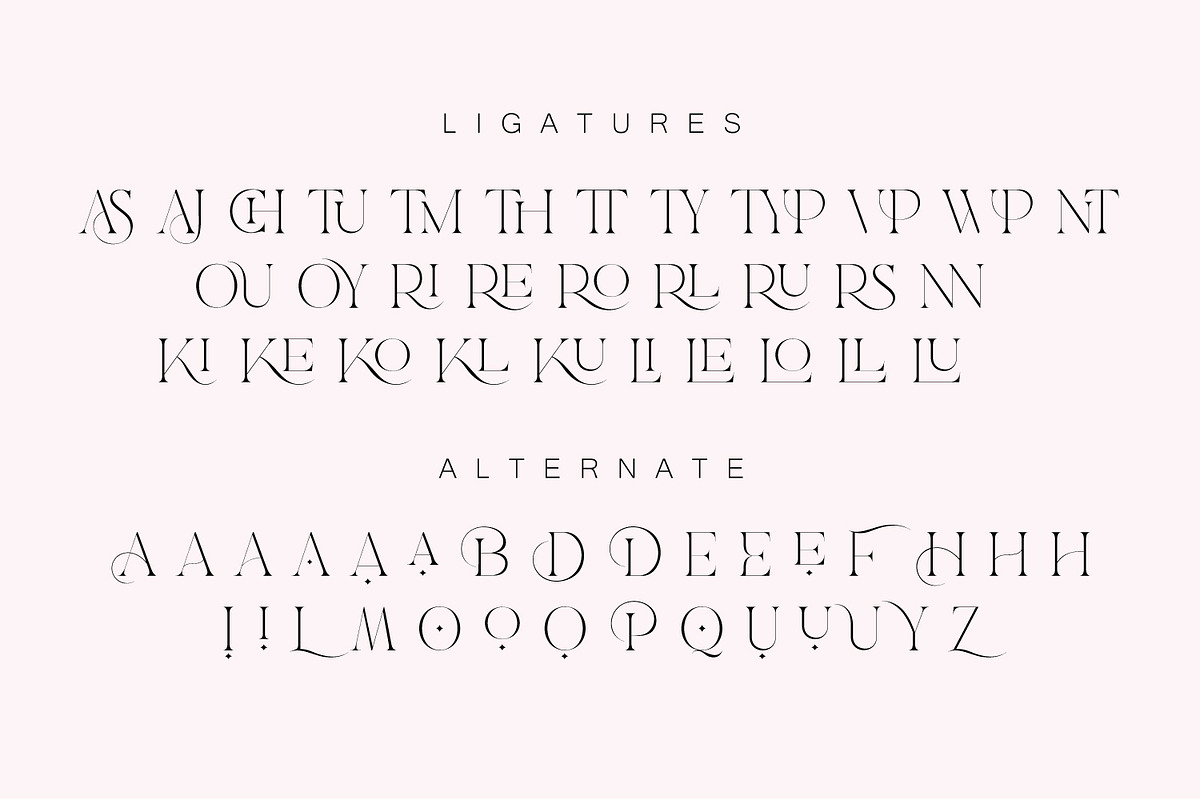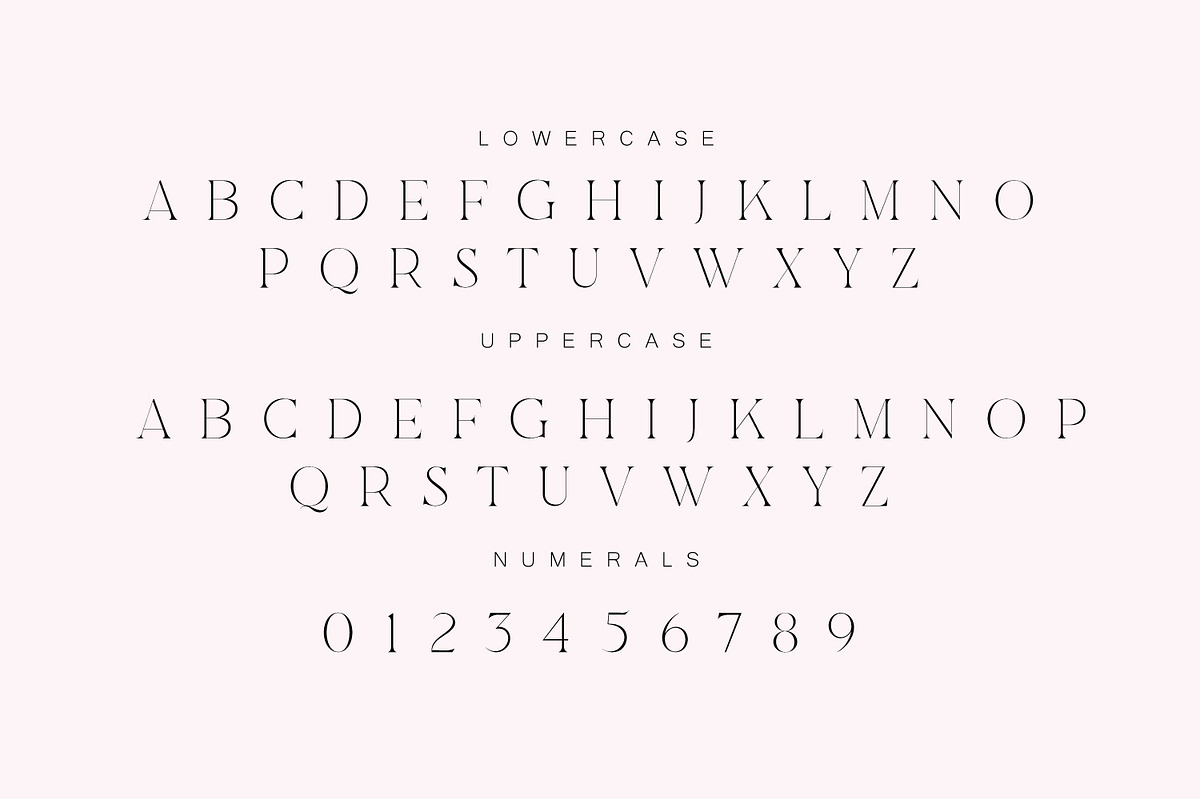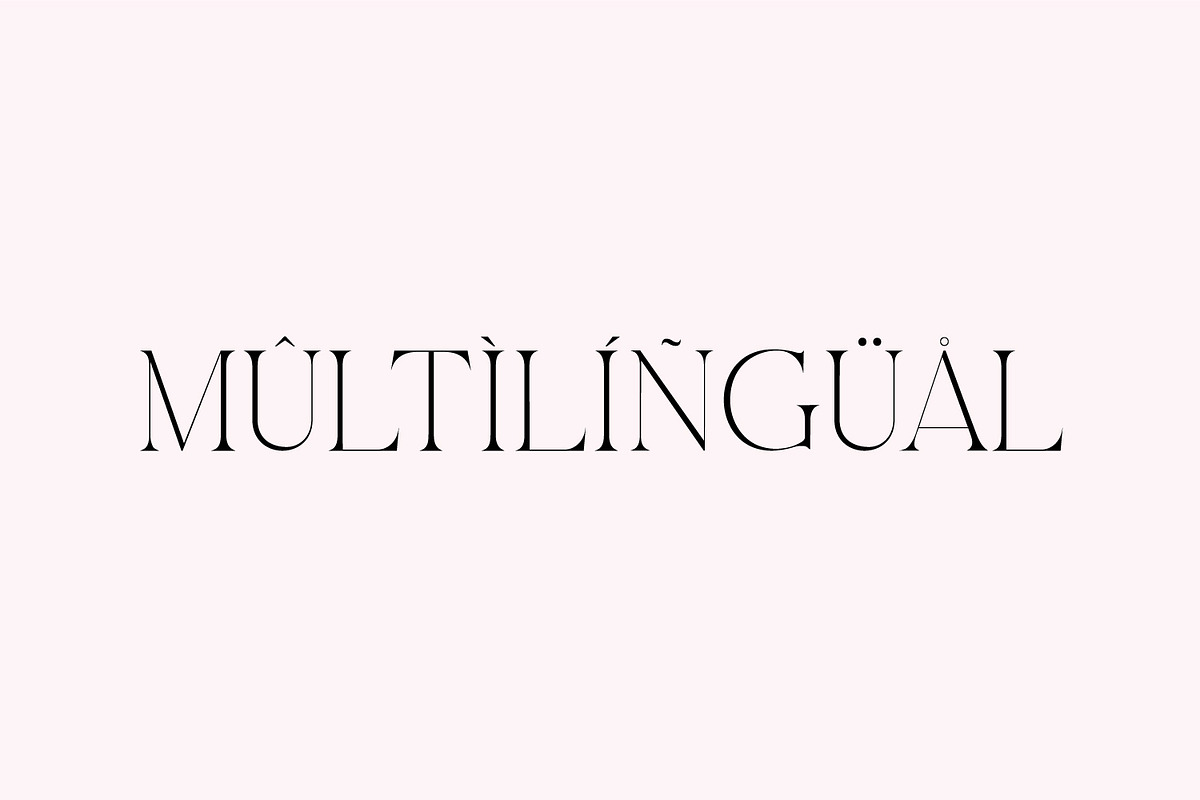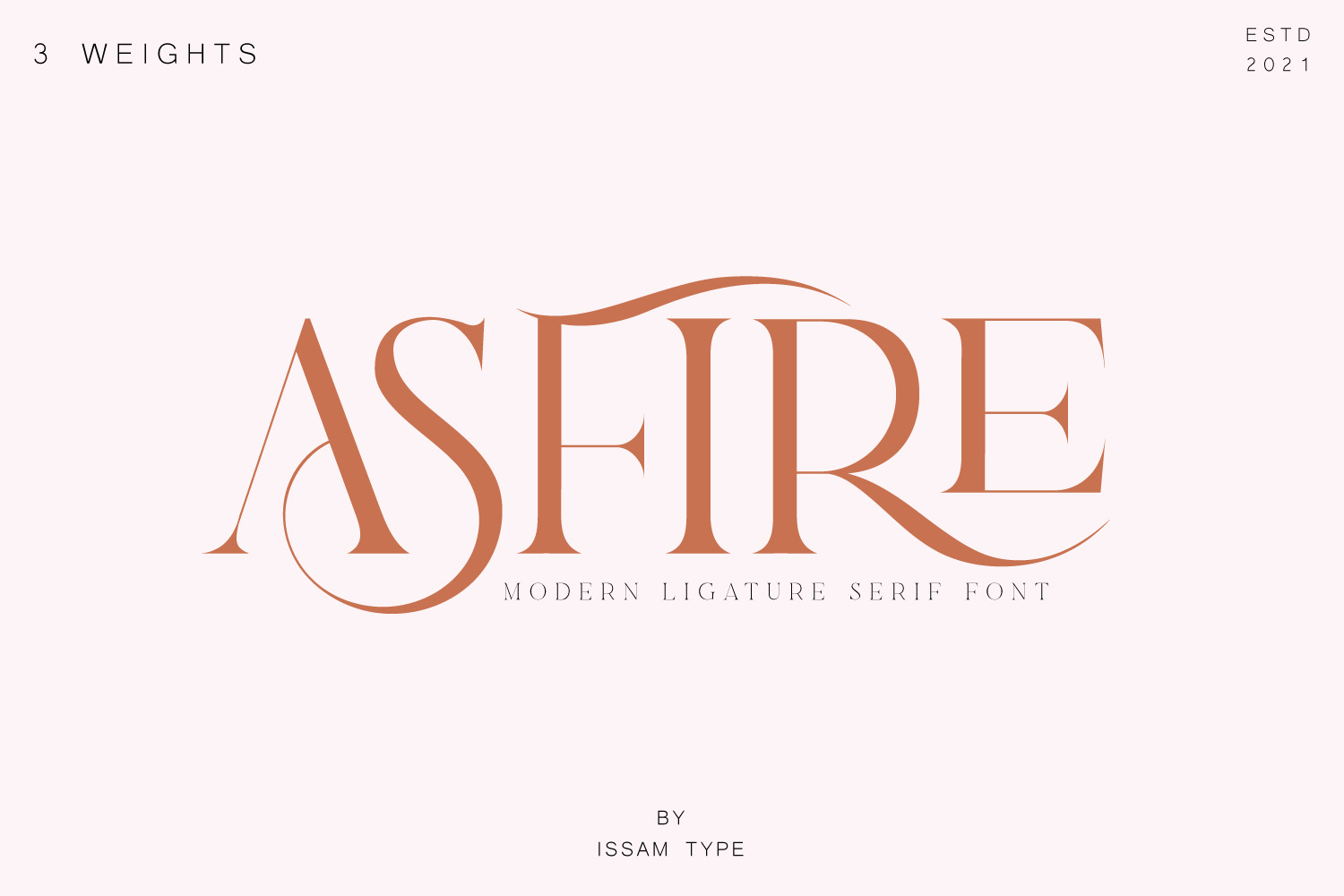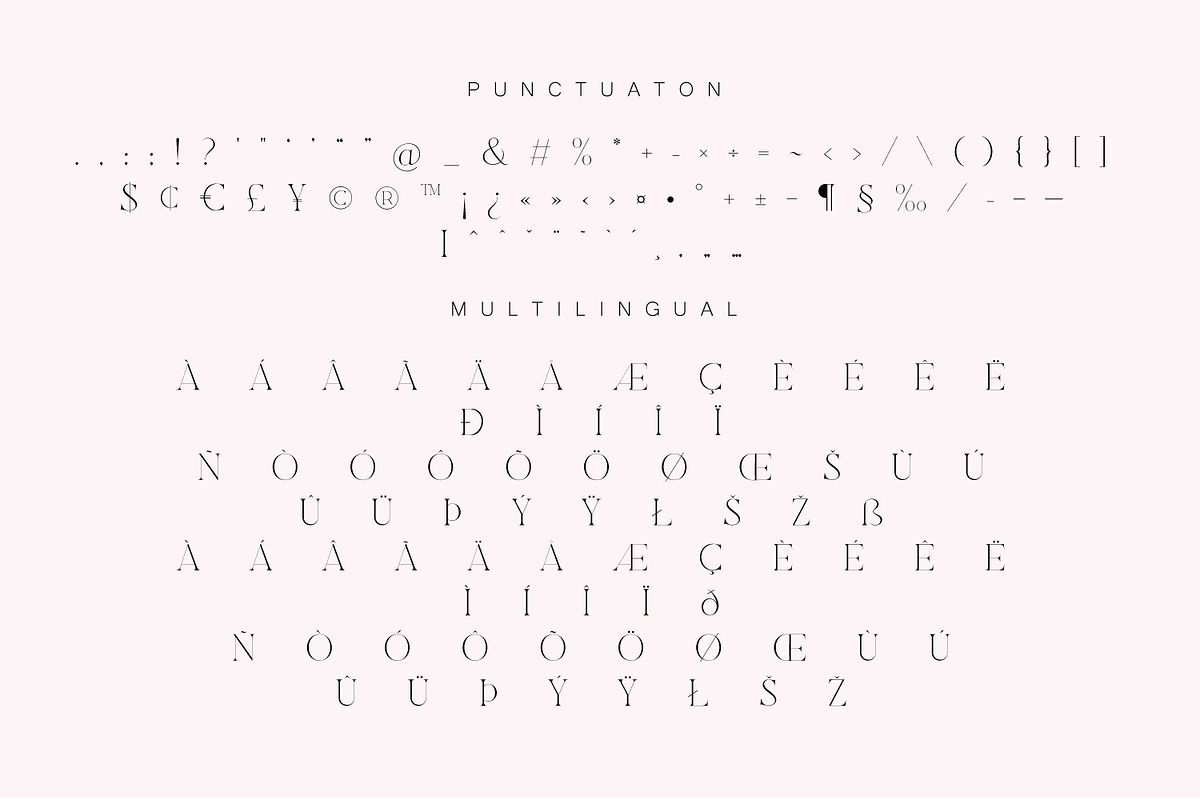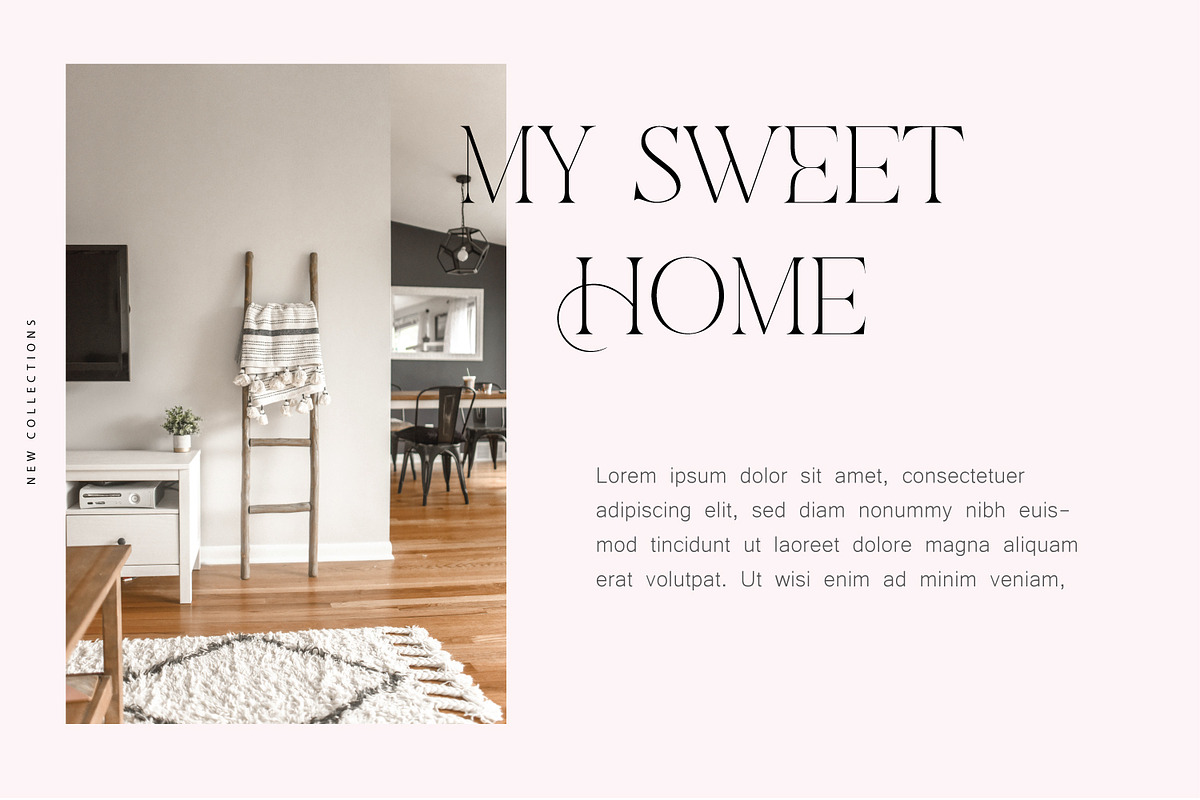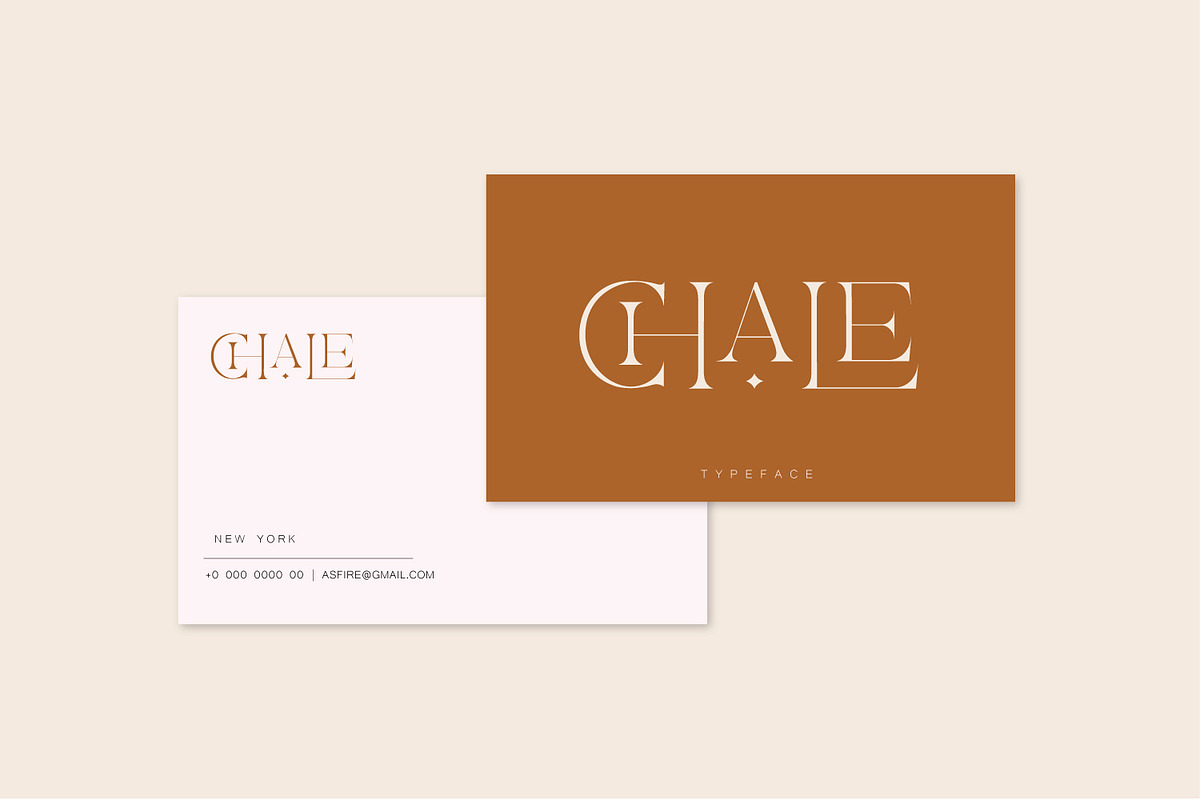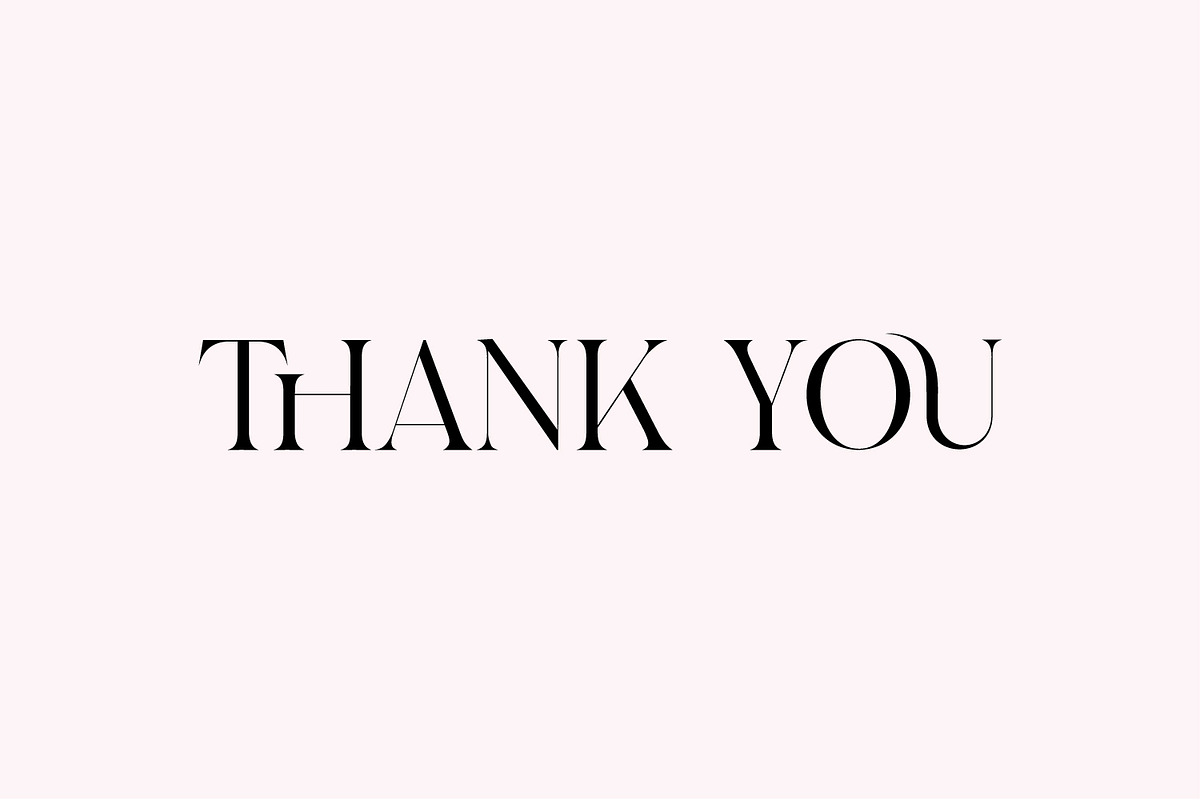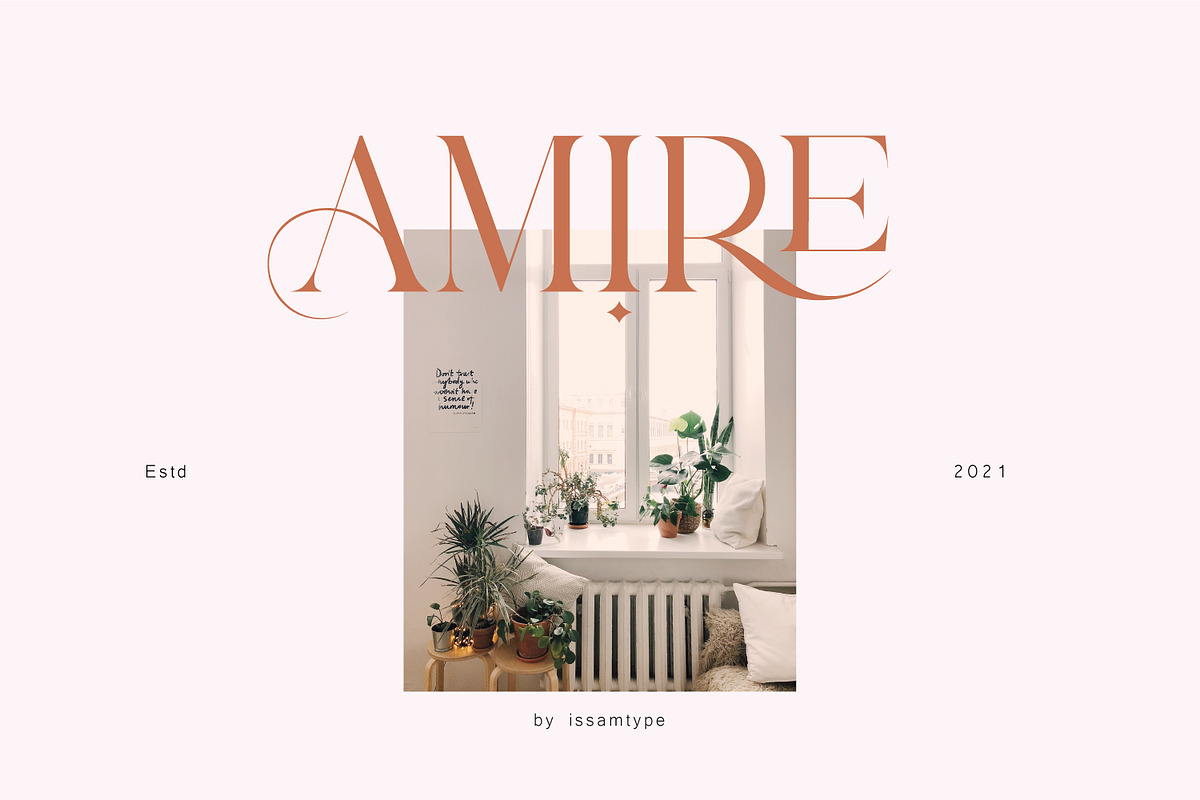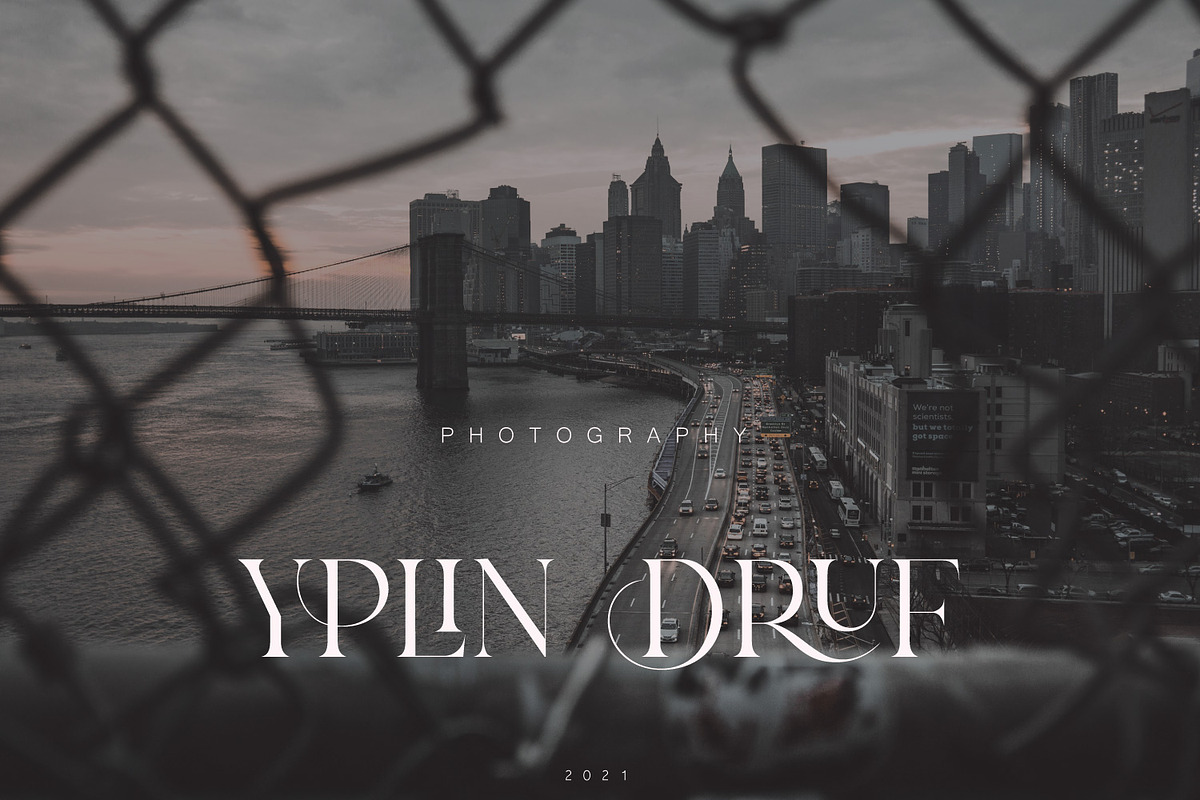
Asfire – Elegant Ligature Serif Font
Asfire is an all caps elegant ligature serif typeface, comes with joining ligatures that give it a fancy and unique style. This font perfect for branding, Headlines, logos, invitation, watermark and so much more.
Asfire typeface comes with regular, bold and condensed font styles. all caps letters, numbers, punctuation, ligatures, alternates multilingual support.